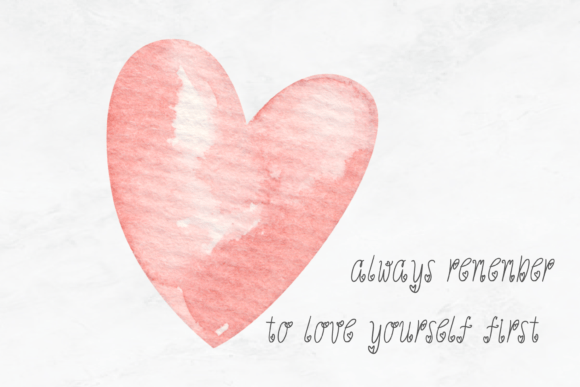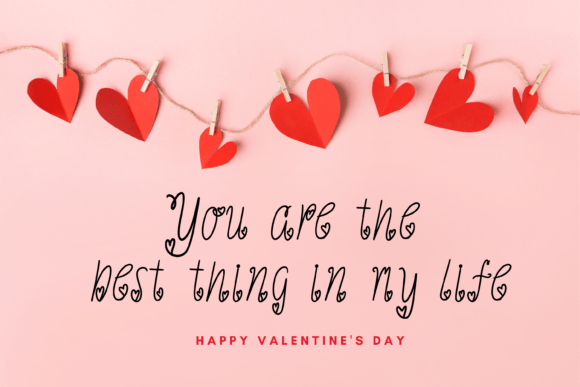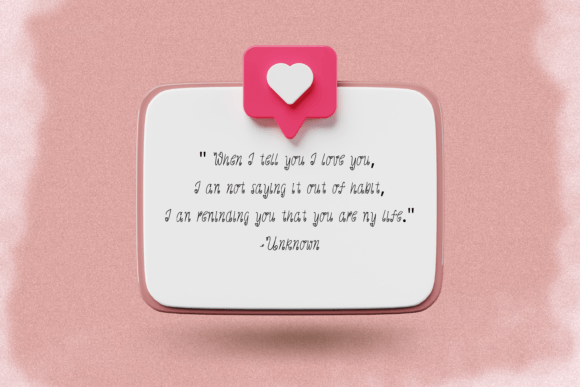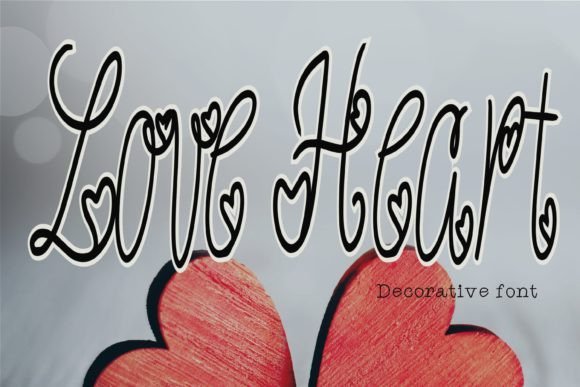
Introduction to Love Heart Font
Love Heart is a cute and lovely handwritten decorative font.
It embodies playfulness and authenticity and is the perfect choice for decorations for weddings, parties, or any children’s activity projects .
Key Features of Love Heart Font
Why Choose Love Heart Font?